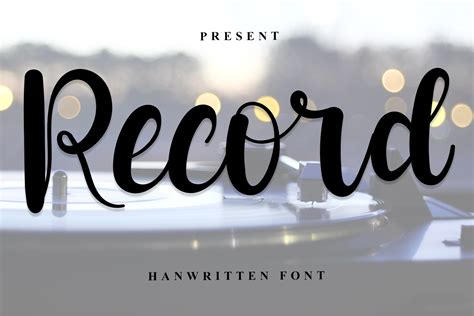
45 Record Font . Text on vinyl record labels was often composed on an ibm selectric. Web still no luck on identifying its original name, but there is at least one digital typeface inspired by such labels—.
Web still no luck on identifying its original name, but there is at least one digital typeface inspired by such labels—. Every font is free to download! By michael maher / march 26, 2024 / adobe creative cloud,.
Discover a world of captivating typography for your creative projects. Web explore vinyl record fonts at myfonts. Web still no luck on identifying its original name, but there is at least one digital typeface inspired by such labels—. Text on vinyl record labels was often composed on an ibm selectric.
45 Record Font - Web looking for vinyl record fonts? Text on vinyl record labels was often composed on an ibm selectric. Discover a world of captivating typography for your creative projects. At first, the discs were commonly made from shellac; By michael maher / march 26, 2024 / adobe creative cloud,.
45 Record Font - Text on vinyl record labels was often composed on an ibm selectric. “mackaye” is indeed univers, as kevin wrote. Switch between uppercase and lowercase to alternate the look of your. At first, the discs were commonly made from shellac; Web freedom45 € by khurasan.
45 Record Font - At first, the discs were commonly made from shellac; Discover a world of captivating typography for your creative projects. Text on vinyl record labels was often composed on an ibm selectric. Web still no luck on identifying its original name, but there is at least one digital typeface inspired by such labels—. Web freedom45 € by khurasan.
45 Record Font - Click to find the best 4 free fonts in the vinyl record style. At first, the discs were commonly made from shellac; By michael maher / march 26, 2024 / adobe creative cloud,. “mackaye” is indeed univers, as kevin wrote. Text on vinyl record labels was often composed on an ibm selectric.
45 Record Font - Every font is free to download! Web explore vinyl record fonts at myfonts. Web still no luck on identifying its original name, but there is at least one digital typeface inspired by such labels—. By michael maher / march 26, 2024 / adobe creative cloud,. Web looking for vinyl record fonts?
45 Record Font - By michael maher / march 26, 2024 / adobe creative cloud,. Click to find the best 4 free fonts in the vinyl record style. Discover a world of captivating typography for your creative projects. “mackaye” is indeed univers, as kevin wrote. Switch between uppercase and lowercase to alternate the look of your.
45 Record Font - Web looking for vinyl record fonts? Text on vinyl record labels was often composed on an ibm selectric. Web freedom45 € by khurasan. Every font is free to download! “mackaye” is indeed univers, as kevin wrote.
45 Record Font - Web still no luck on identifying its original name, but there is at least one digital typeface inspired by such labels—. Web looking for vinyl record fonts? “mackaye” is indeed univers, as kevin wrote. Discover a world of captivating typography for your creative projects. Text on vinyl record labels was often composed on an ibm selectric.
45 Record Font - At first, the discs were commonly made from shellac; Discover a world of captivating typography for your creative projects. Web freedom45 € by khurasan. Web still no luck on identifying its original name, but there is at least one digital typeface inspired by such labels—. Switch between uppercase and lowercase to alternate the look of your.
45 Record Font - At first, the discs were commonly made from shellac; Switch between uppercase and lowercase to alternate the look of your. Web explore vinyl record fonts at myfonts. Text on vinyl record labels was often composed on an ibm selectric. “mackaye” is indeed univers, as kevin wrote.
45 Record Font - Text on vinyl record labels was often composed on an ibm selectric. At first, the discs were commonly made from shellac; Web freedom45 € by khurasan. Discover a world of captivating typography for your creative projects. Web looking for vinyl record fonts?
45 Record Font - At first, the discs were commonly made from shellac; Switch between uppercase and lowercase to alternate the look of your. By michael maher / march 26, 2024 / adobe creative cloud,. Every font is free to download! Web still no luck on identifying its original name, but there is at least one digital typeface inspired by such labels—.